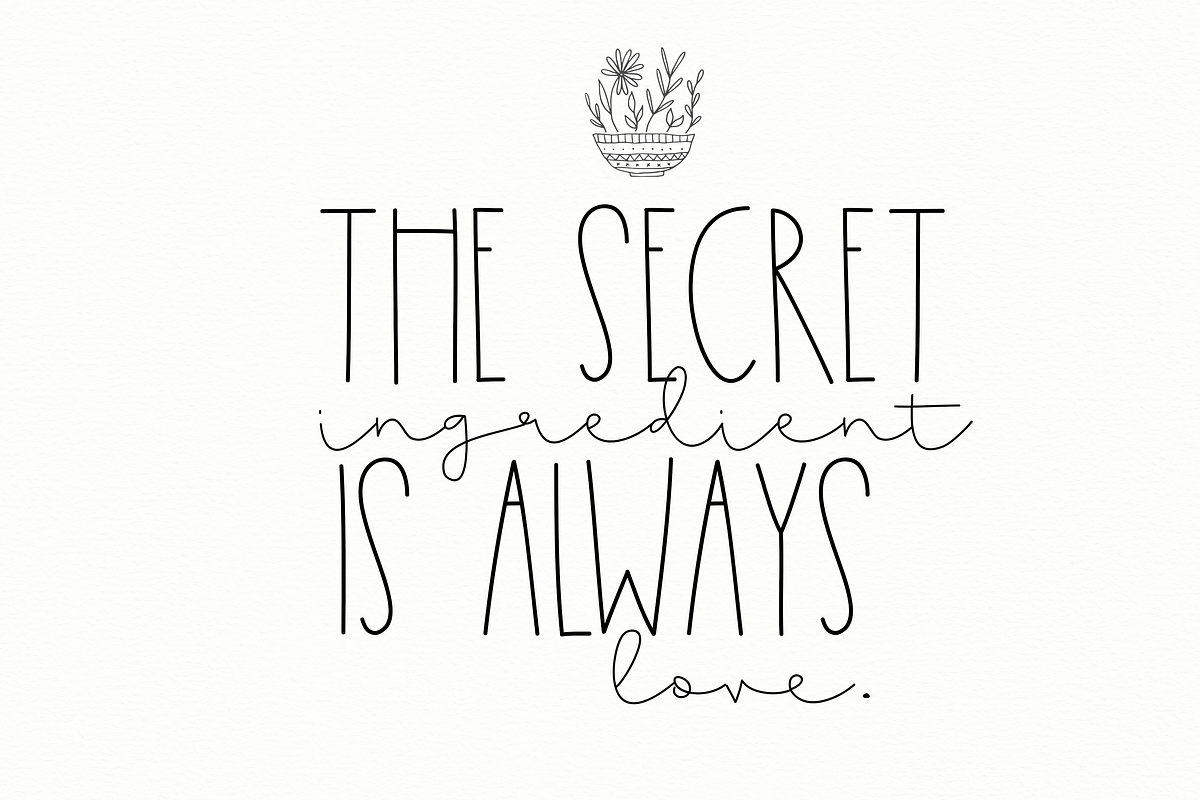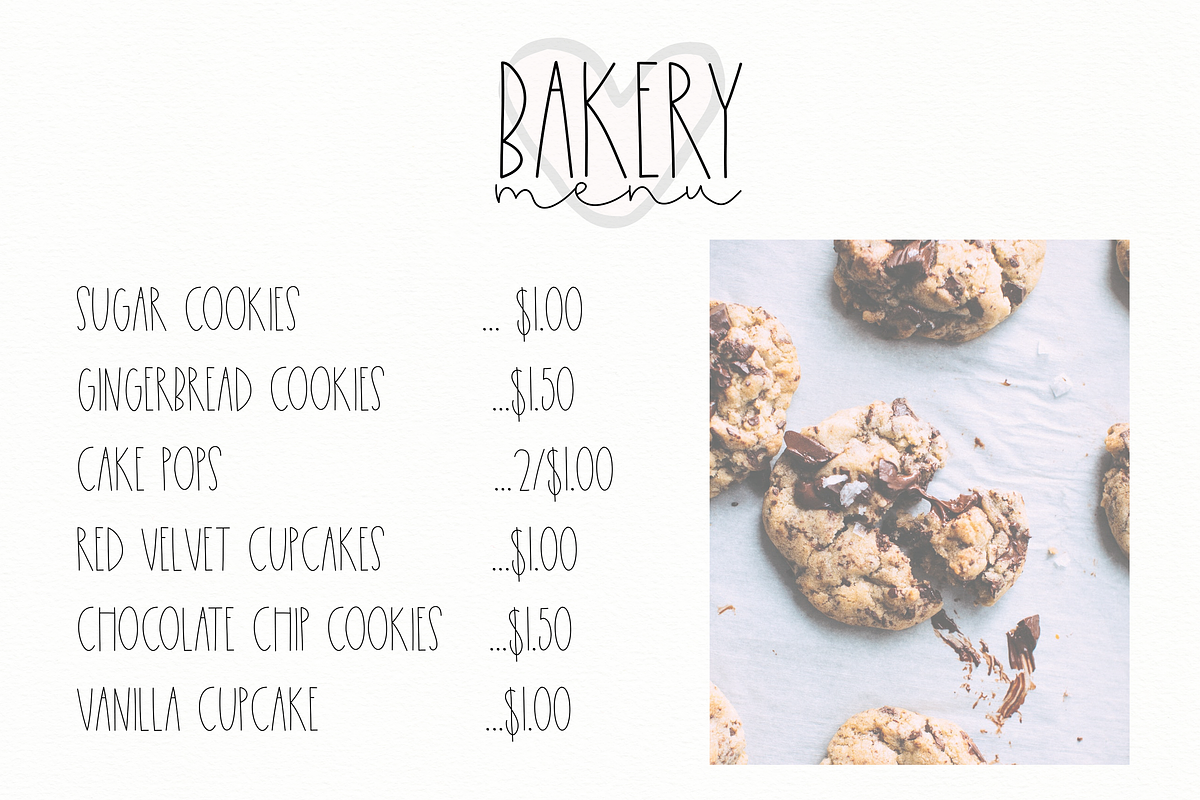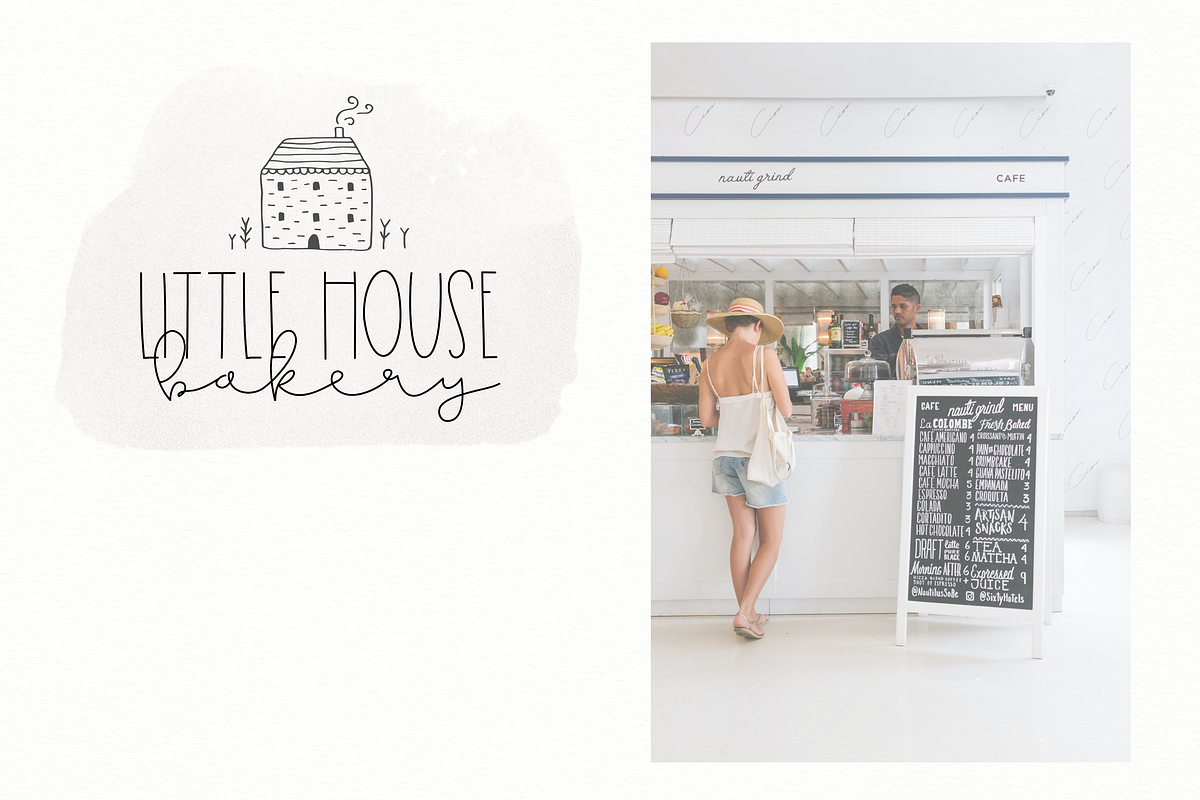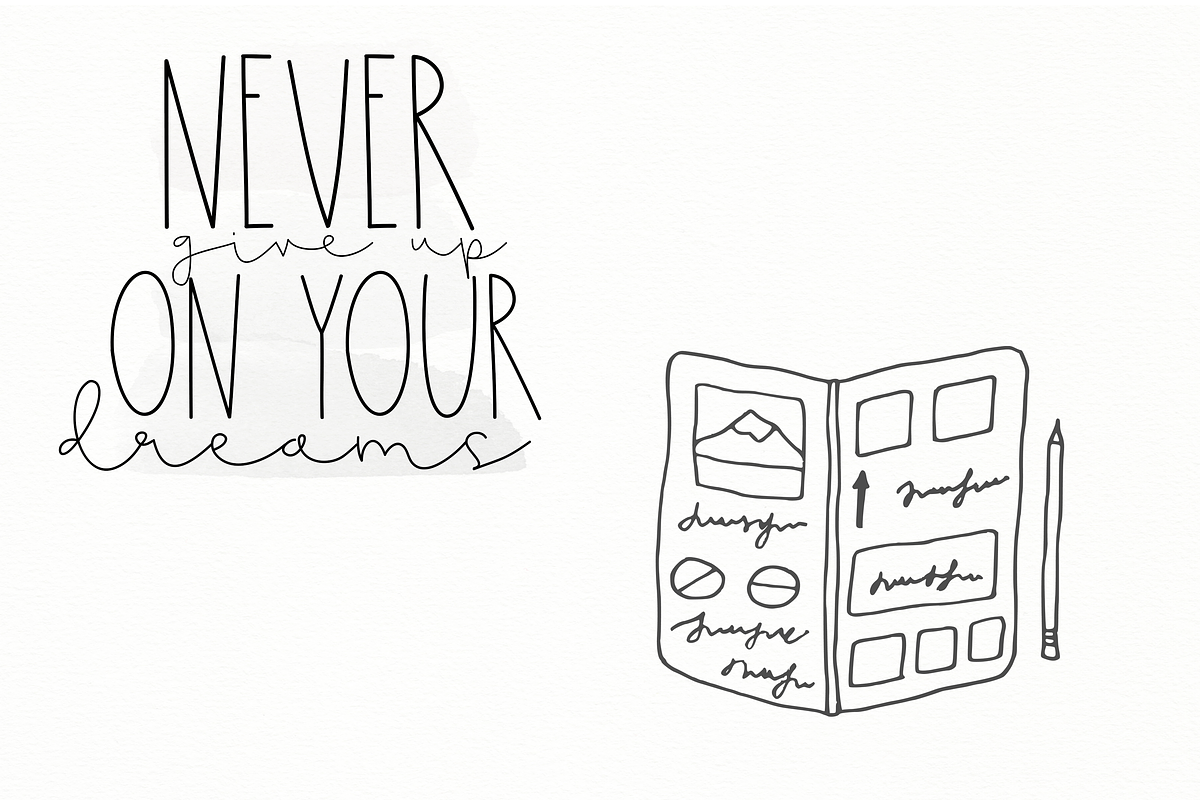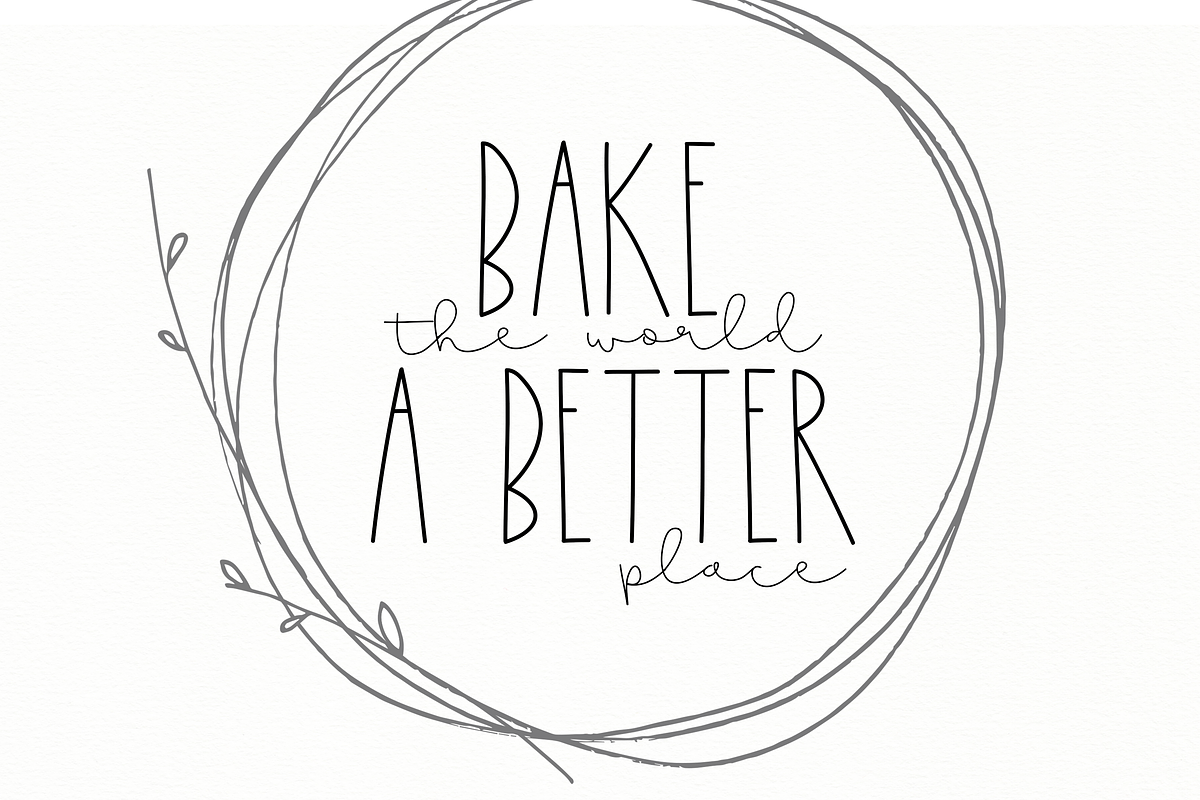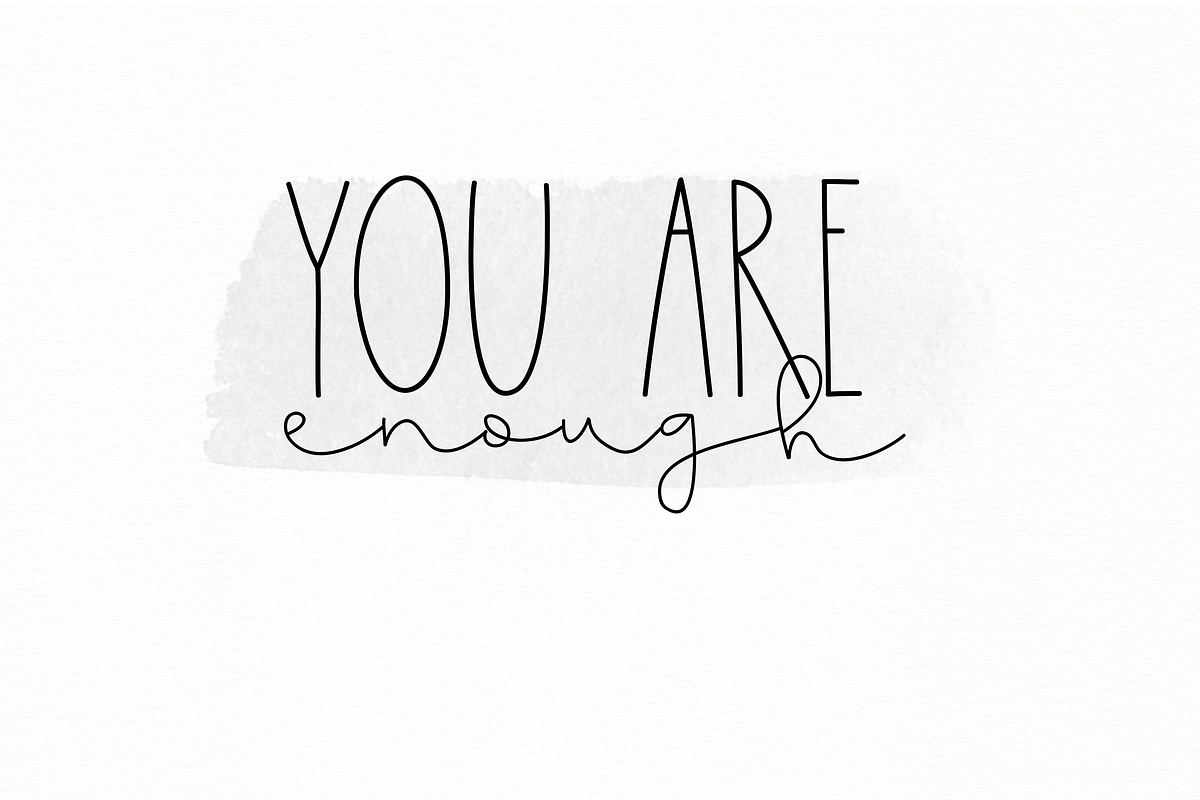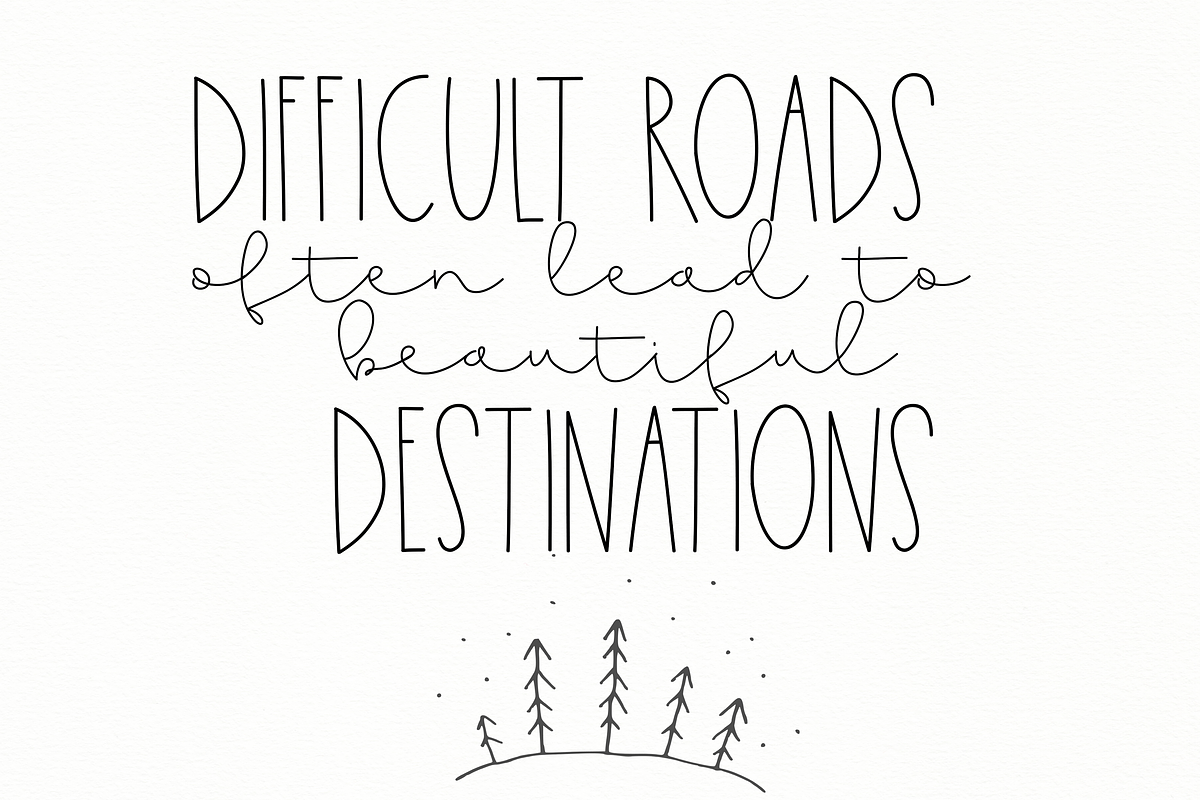
Gingerbread Cookies - A Font Duo
Gingerbread Cookies is a cute handwritten font duo. You will receive two different fonts that coordinate perfectly together! Gingerbread is a tall, thin font. Cookies is an elegant, long script font.
This font is perfect for quotes, headings, blogs, logos, invitations and more!
- There are no extra ligatures - I like to keep it simple.